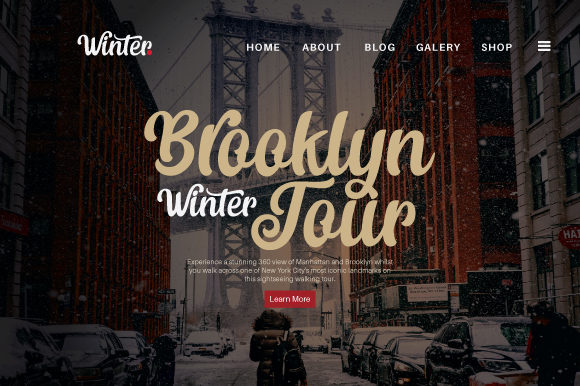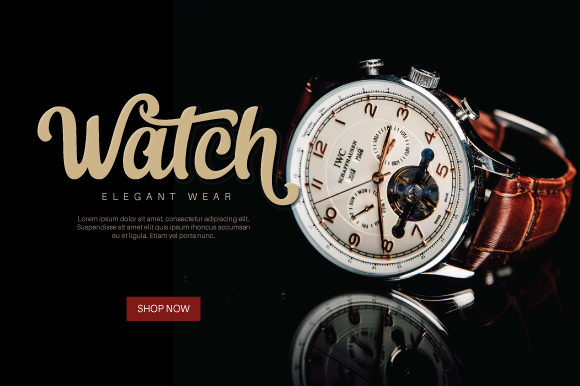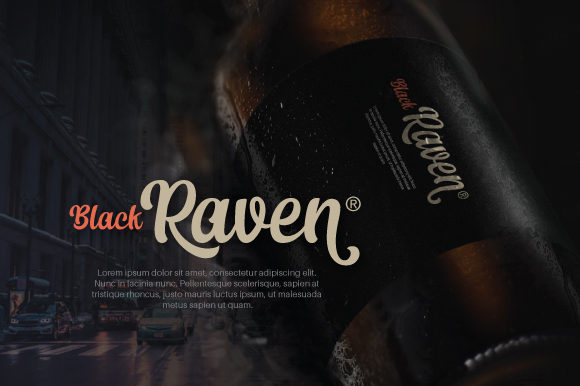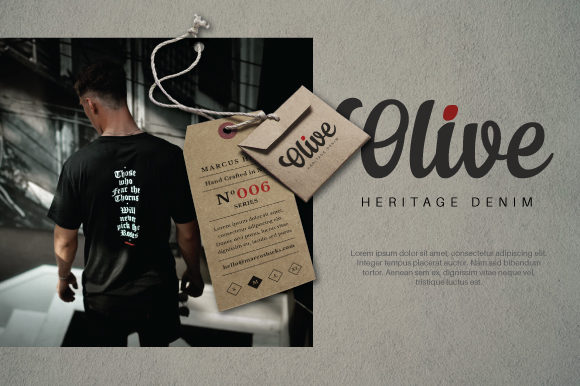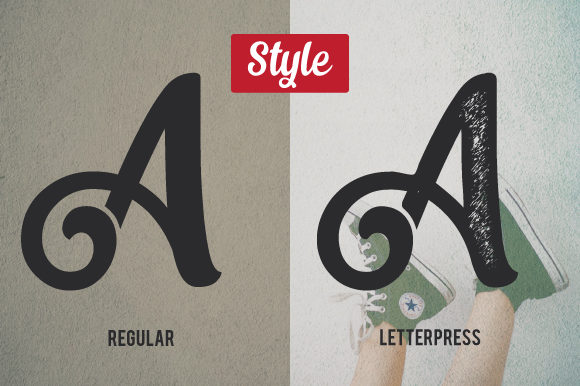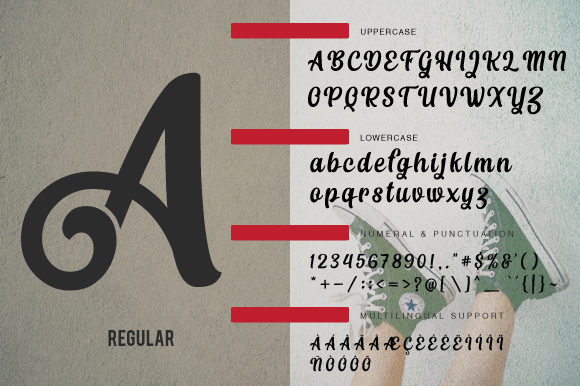
Introducing Happy Snow Font: The Playful and Dynamic Script for Branding
Are you looking for a font that can add a touch of playfulness and uniqueness to your design projects? Look no further than Happy Snow Font! This delightful script is perfect for branding, and its dynamic style is sure to make your designs stand out. In this article, we’ll dive into the features and benefits of Happy Snow Font, and explore how it can elevate your design game.
A Playful and Dynamic Script
Happy Snow Font is a script font that exudes playfulness and energy. Its dynamic strokes and curly flourishes make it a joy to use, and its friendly vibe is sure to appeal to designers and crafters alike. Whether you’re working on a branding project, a craft project, or just want to add some personality to your designs, Happy Snow Font is the perfect choice.
Incredibly Recognizable
One of the standout features of Happy Snow Font is its recognizability. This font is incredibly distinctive, and its unique style makes it easy to identify. When you use Happy Snow Font in your designs, you can be sure that it will leave a lasting impression on your audience. Whether you’re looking to build a strong brand identity or simply want to add some visual interest to your designs, Happy Snow Font is an excellent choice.
Turn Any Design Project into a Unique Piece of Art
Happy Snow Font has the power to transform any design project into a unique piece of art. Its dynamic style and playful vibe make it perfect for a wide range of design applications, from branding and advertising to crafting and DIY projects. With Happy Snow Font, you can add a touch of personality and whimsy to your designs, and create something that truly stands out.
Happy Snow Font is a versatile font that’s perfect for both designers and crafters. Whether you’re working on a professional design project or a personal crafting project, this font is sure to inspire your creativity. Designers will love the way Happy Snow Font adds a touch of playfulness and sophistication to their designs, while crafters will appreciate its whimsical and fun vibe.
Key Features of Happy Snow Font
- Playful and dynamic script: Happy Snow Font is a script font that’s full of energy and playfulness.
- Incredibly recognizable: This font is distinctive and easy to identify, making it perfect for building a strong brand identity.
- Unique and artistic: Happy Snow Font has the power to transform any design project into a unique piece of art.
- Versatile: This font is perfect for a wide range of design applications, from branding and advertising to crafting and DIY projects.
Tips and Tricks for Getting the Most Out of Happy Snow Font
- Experiment with different colors: Happy Snow Font looks great in a variety of colors, so don’t be afraid to experiment and find the perfect hue for your design.
- Use it with other fonts: Happy Snow Font pairs well with other fonts, so try combining it with a bold font for added contrast.
- Add some texture: Adding texture to your design can help make Happy Snow Font stand out even more.
In conclusion, Happy Snow Font is a playful and dynamic script that’s perfect for branding and design projects. Its unique style and recognizable vibe make it a standout font that’s sure to leave a lasting impression. Whether you’re a designer or a crafter, Happy Snow Font is a versatile font that’s sure to inspire your creativity. So why wait? Download Happy Snow Font today and start creating unique and artistic designs that stand out from the crowd!